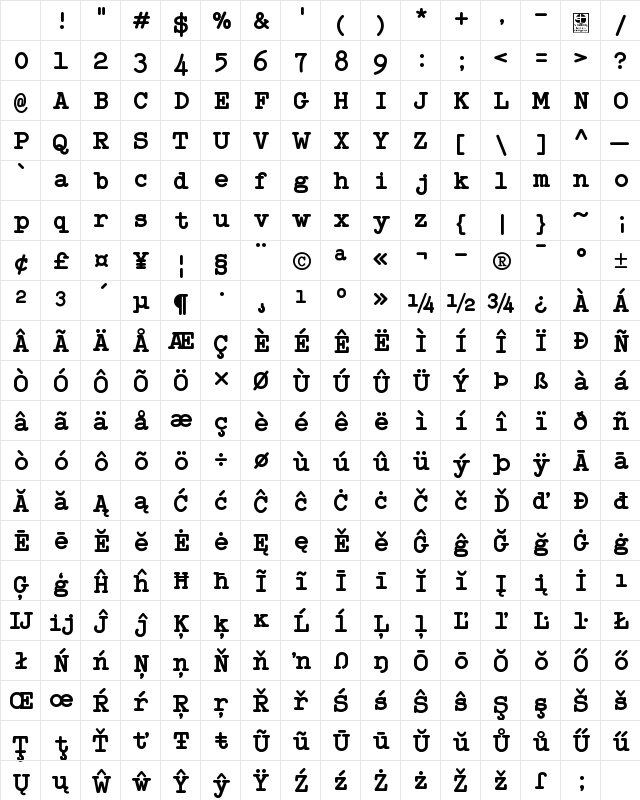
Complete Typo Writer Demo Bold glyph index. Displaying only characters natively supported by Typo Writer Demo Bold font.
Typo Writer Demo is a composed and adaptable typeface that performs quietly and consistently across a wide range of design contexts. Its bold stroke weight gives it real presence on the page.